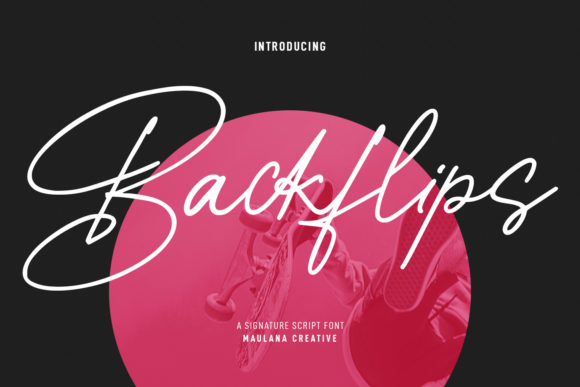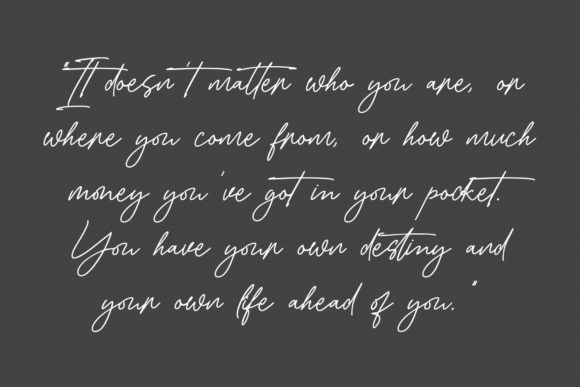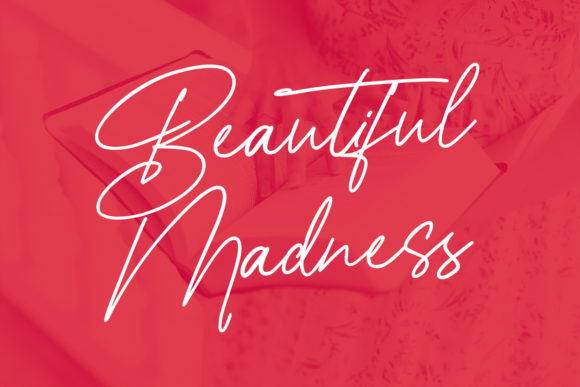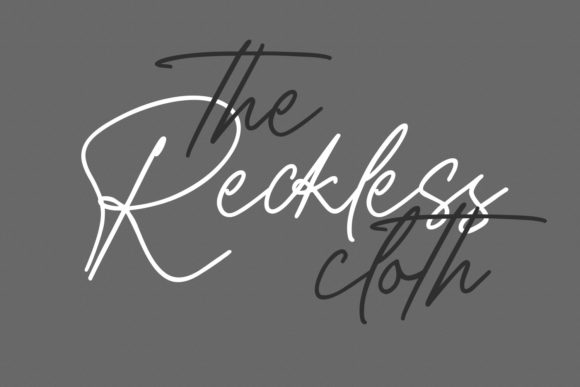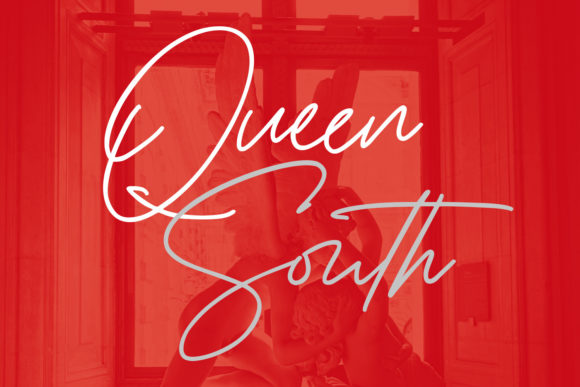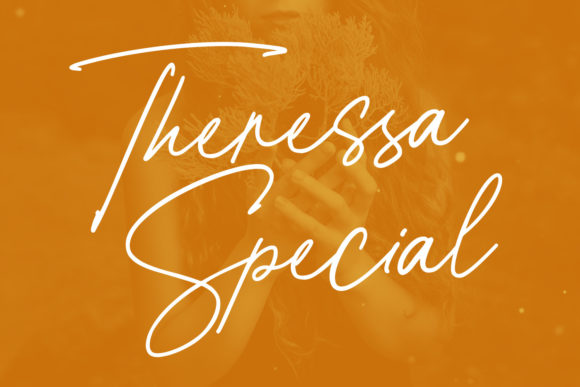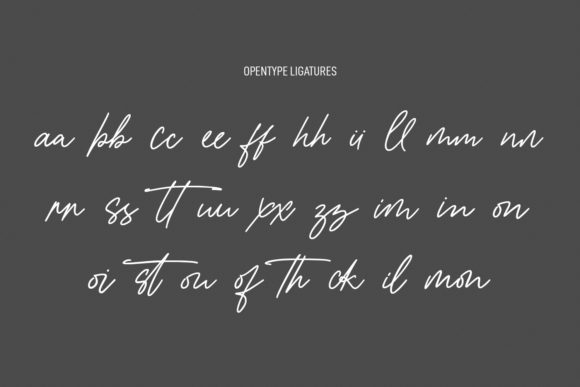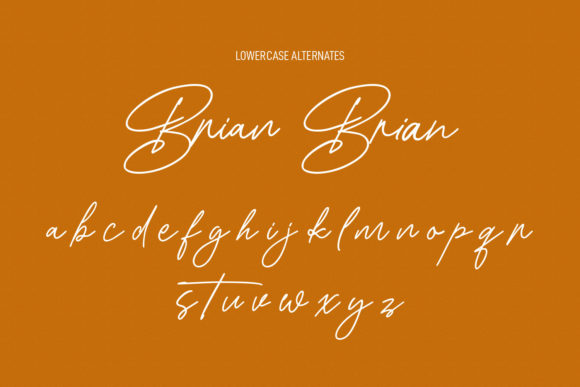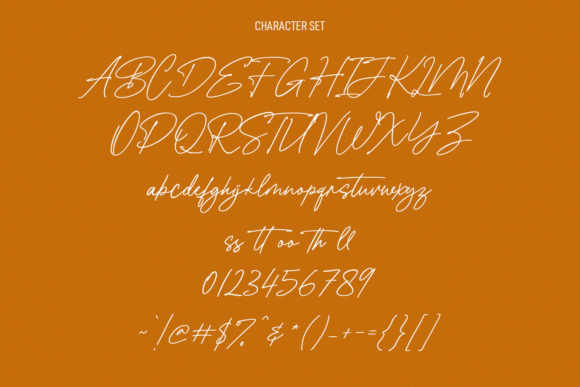
Backflips Font
About Backflips Font
Backflips is a fancy script font. It features medium contrast strokes, fun characters, ligatures and alternates. It will add a luxury spark to any design project that you wish to create!